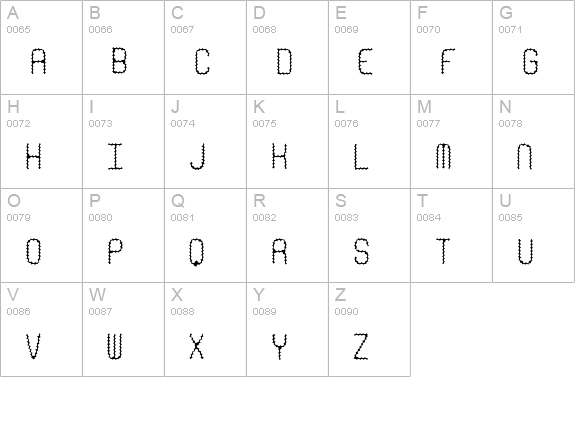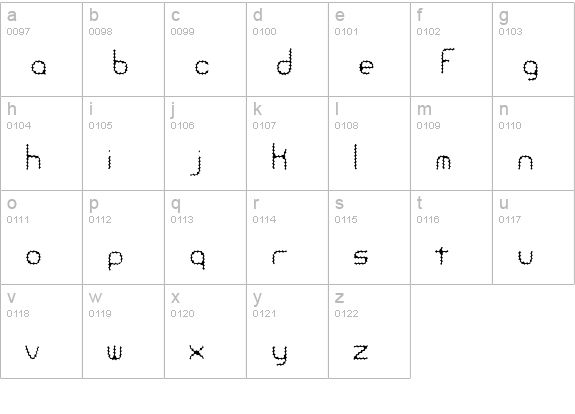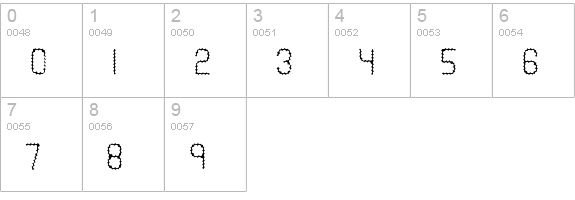
Ravenous Caterpillar BRK Font Details
Introducing the captivating and mesmerizing Ravenous Caterpillar BRK font - a true feast for the eyes! This unique typeface is a perfect blend of elegance and playfulness, making it a versatile choice for a wide range of design projects. Ravenous Caterpillar BRK font boasts distinctive letterforms that effortlessly intertwine to create a visually stunning effect. Its intricate details and flowing curves give each character a sense of movement, as if they were dancing on the page. This font truly captures the essence of creativity and imagination. One of the most remarkable aspects of Ravenous Caterpillar BRK font is that it is freely available to download at FontsMarket.com. Yes, you read that right - this exceptional font can be yours without spending a dime! Whether you're a professional designer looking to add a touch of magic to your creations or a hobbyist seeking to add some flair to personal projects, Ravenous Caterpillar BRK font is the perfect choice. The versatility of this font is truly unparalleled. It can be used for anything from logos and branding to posters, invitations, and beyond. Its bold, yet delicate appearance ensures that your message will be conveyed with utmost impact. With Ravenous Caterpillar BRK font, you have the power to create designs that are both captivating and unforgettable. So why wait? Unleash your creativity and download Ravenous Caterpillar BRK font today, exclusively at FontsMarket.com. Join the countless designers who have already embraced this font's charm and make your projects stand out from the crowd. Experience the beauty of Ravenous Caterpillar BRK font and let your imagination take flight!